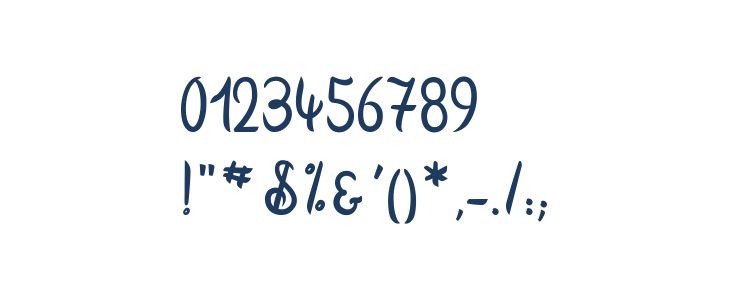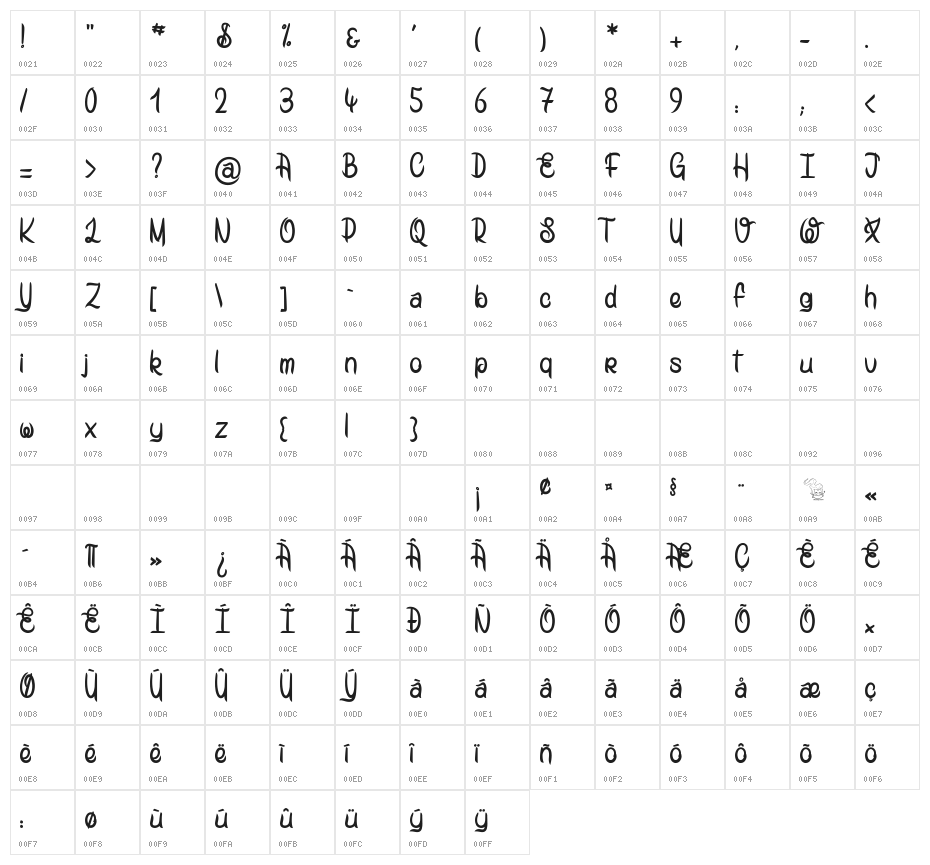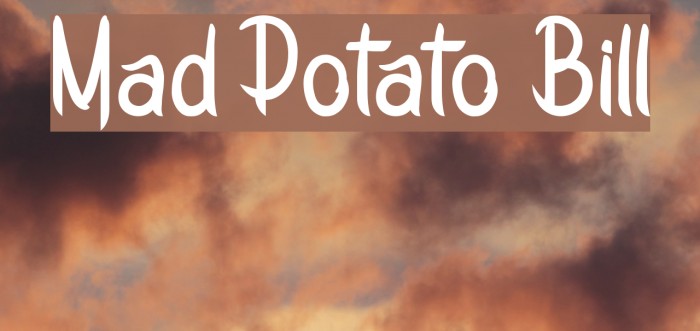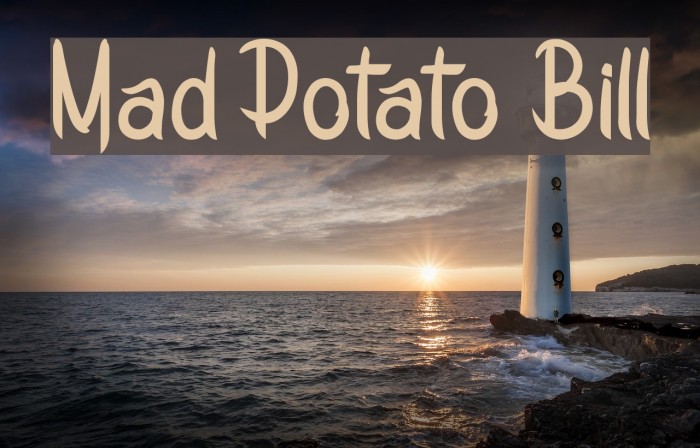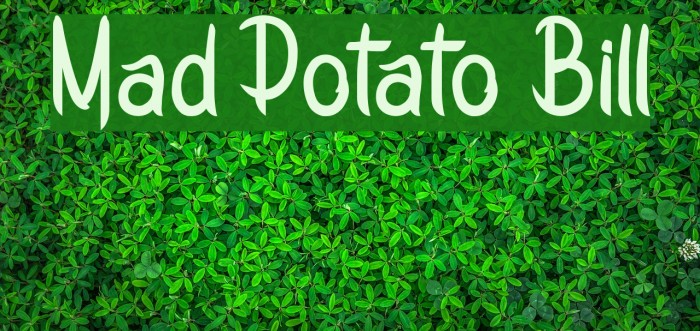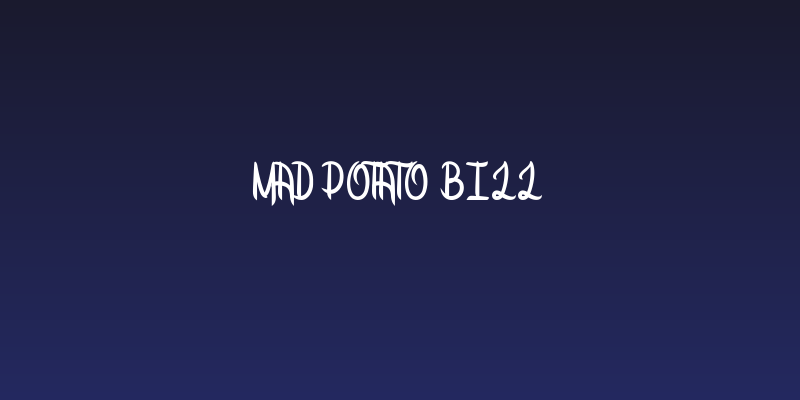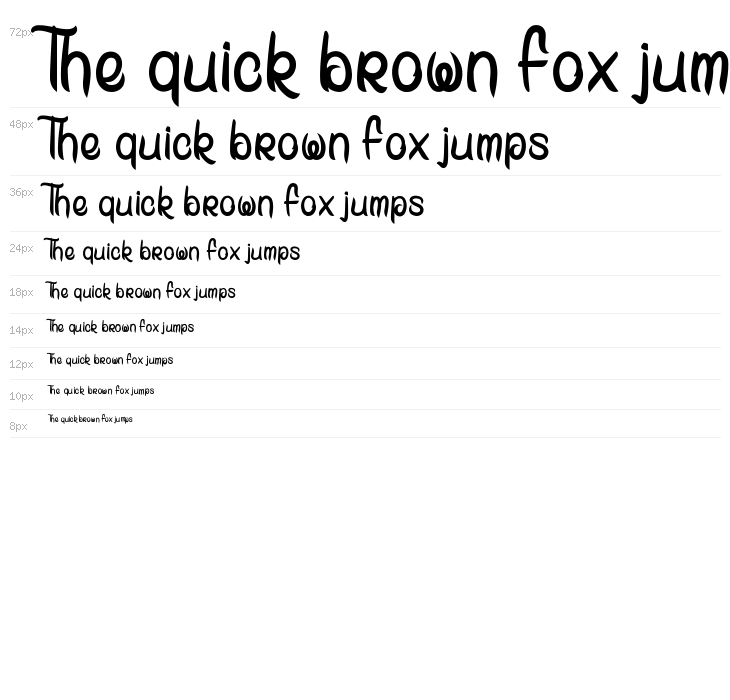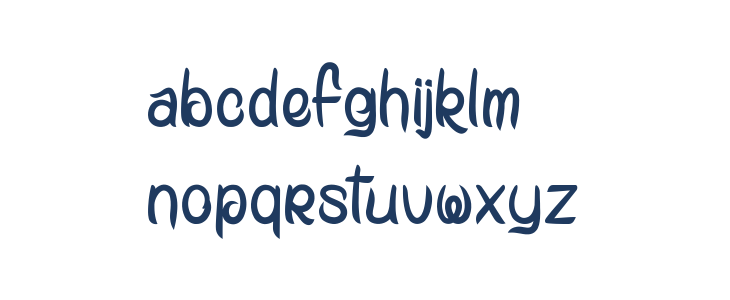
Mad Potato Bill Font
Mad Potato Bill Description
This playful and whimsical font features a handwritten style with exaggerated curves and loops, giving it a lively and energetic appearance. The uppercase letters are bold and dynamic, while the lowercase letters maintain a consistent flow, creating a harmonious balance. Numbers and special characters are crafted with the same playful spirit, making them stand out. The font's unique character is perfect for projects that require a fun and informal touch. Its distinct style is both eye-catching and memorable, making it suitable for a variety of creative applications.
Proposed ProjectsIdeal for children's books, playful branding, greeting cards, and creative posters.